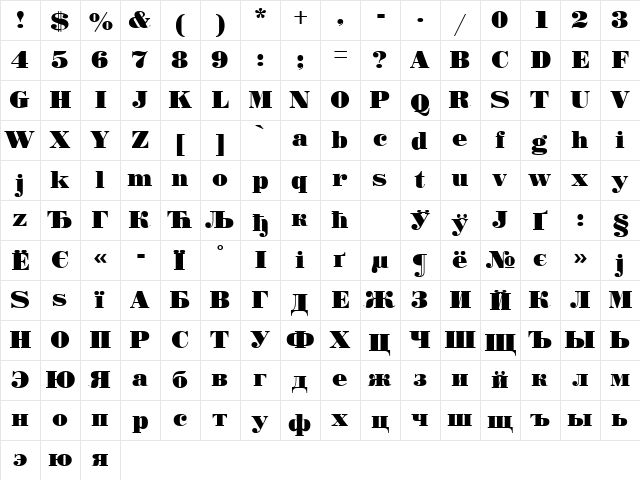
StandardPosterCTT Regular
Design Context for StandardPosterCTT Typeface
StandardPosterCTT offers clean, dependable letterforms without strong stylistic allegiance, making it a practical choice for designers who need flexibility.